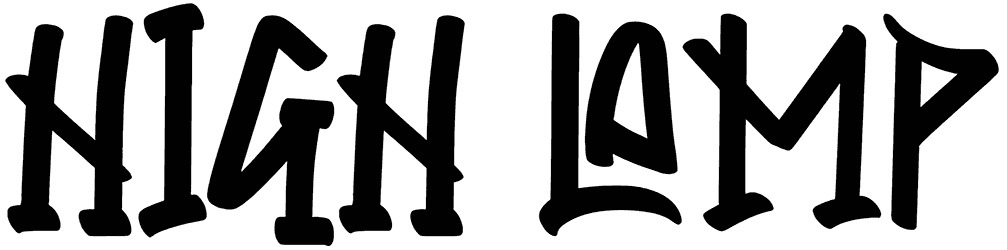
High Lamp Font
Every design needs specific elements that can convey your intended vibe, and if you plan to reflect a street art mood, this graffiti font would be a cool item. Distinct letters of this script font can give a charming vibe to your layout. There is no cover for lowercase letters and punctuation marks, but you can count on the High Lamp font to create a memorable draft.